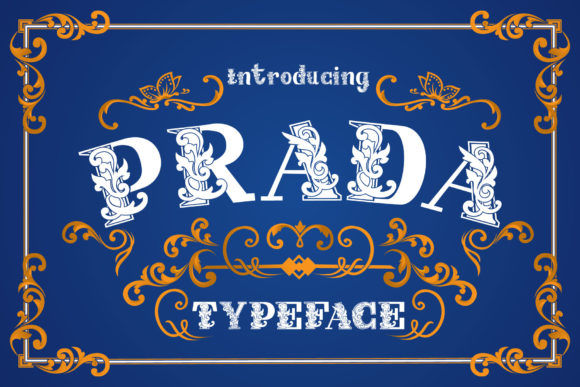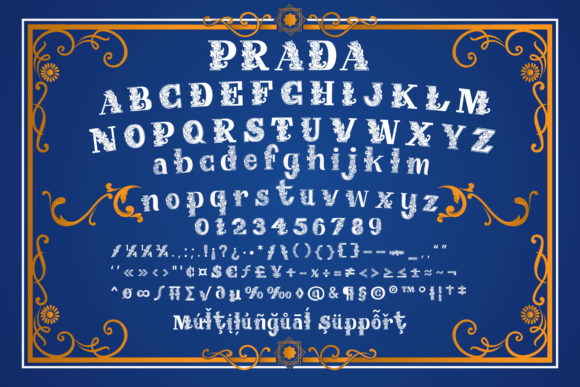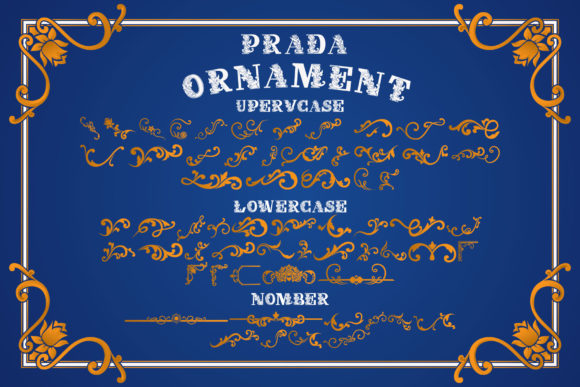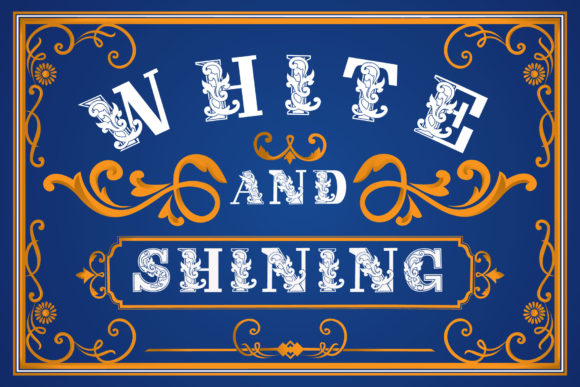
Prada Font
About the Prada Font
Experience the unique personality of Prada Font, a font designed for impact. Prada is an incredibly unique, bold and imposing decorative font. It looks both elegant and classic and it will fit a wide range of design ideas. Add it confidently to your projects, and you won’t be disappointed.
Prada excels in headline applications, particularly for luxury branding, fashion campaigns, and high-end product packaging where its bold, elegant presence commands attention. Its strong forms also work well for short, impactful statements in posters or signage. However, its decorative nature makes it unsuitable for body text or UI elements requiring high readability. Long blocks of Prada would be visually overwhelming and hinder legibility.
Consider pairing Prada with a clean sans-serif like Helvetica Neue for a sophisticated contrast, or a classic serif such as Garamond for a more traditional, yet equally refined look. For a bolder, more modern feel, a geometric sans-serif like Futura could be effective. The key is to choose a contrasting font that provides a strong counterpoint to Prada’s ornate style while maintaining visual harmony.
The overall personality of Prada is confident, sophisticated, and undeniably luxurious. Its imposing forms communicate a sense of high-end quality and timeless elegance, making it a strong choice for brands that wish to project an image of exclusivity and prestige.
Prada Font Example